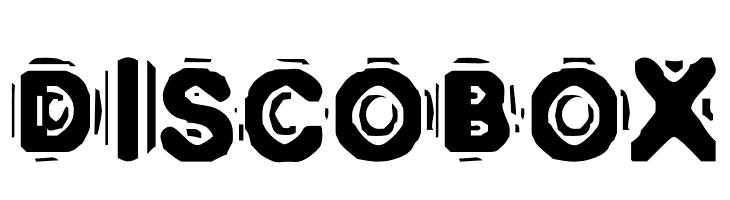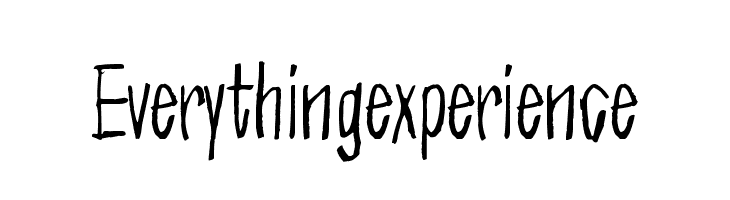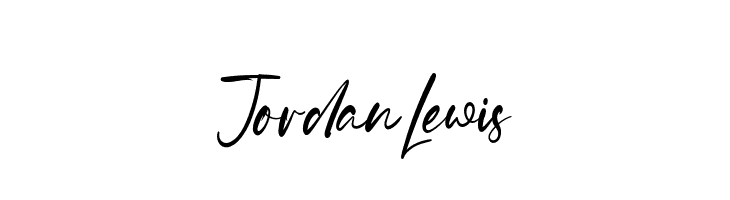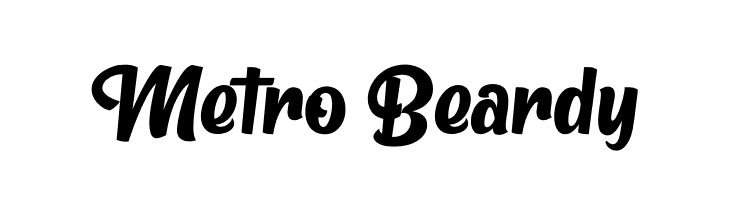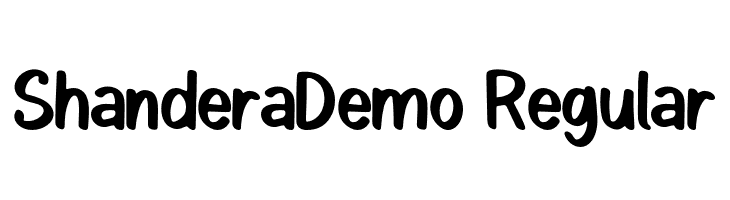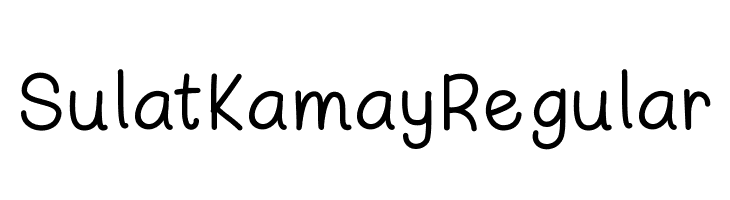
A playful, rounded font with a hand-drawn, casual style.
A bold, energetic script font with flowing strokes and playful curves.
A decorative font with uppercase letters inside gravestone shapes, featuring flowers and grass.
A clean, modern sans-serif font with semi-bold weight and uniform stroke width.
A bold, geometric font with angular shapes and a monospaced look.
A bold, distressed font with a vintage, rugged appearance.
A modern, rounded font with a clean and approachable design.
A bold, geometric font with sharp angles and unique cutouts.
An elegant script font with intricate loops and swashes, perfect for decorative use.